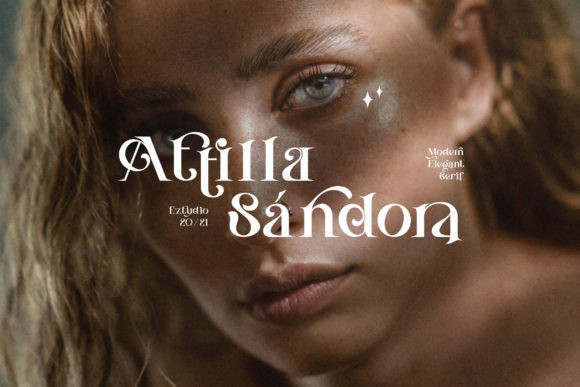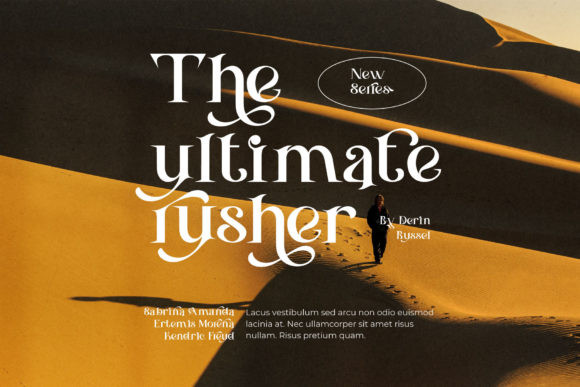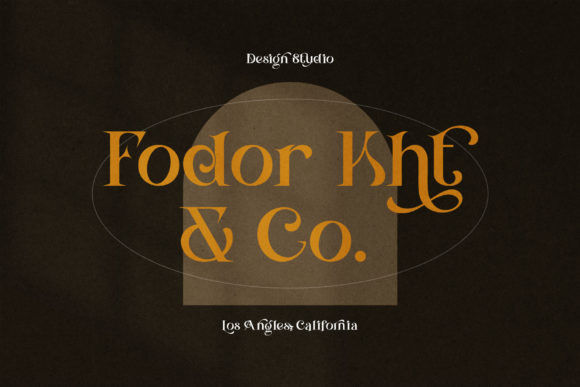
Attilla Sandora Font
Attilla Sándora is a modern, elegant and highly detailed serif font. This font is imposing and features uniquely shaped letters, and as a result, it will easily match a wide range of creations that require a distinct touch.